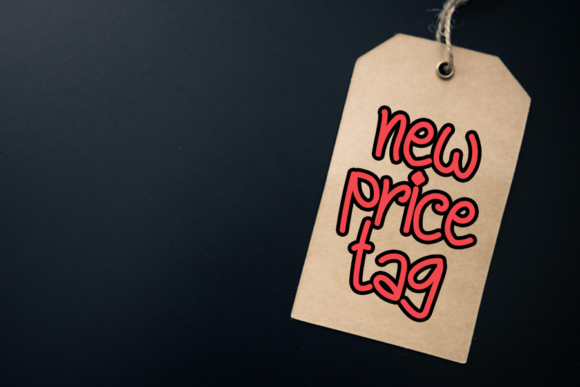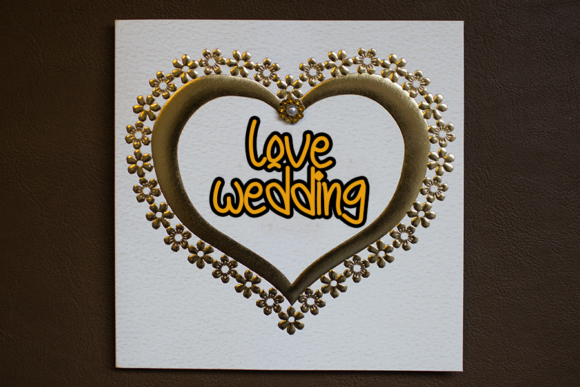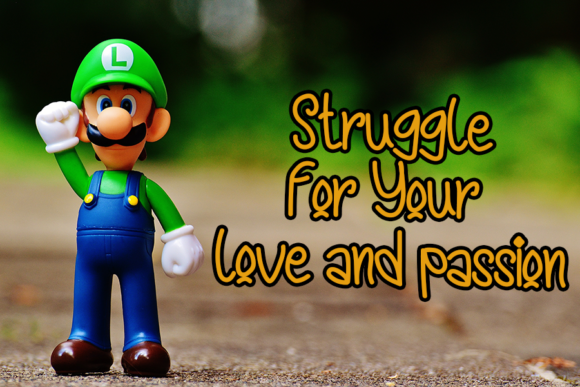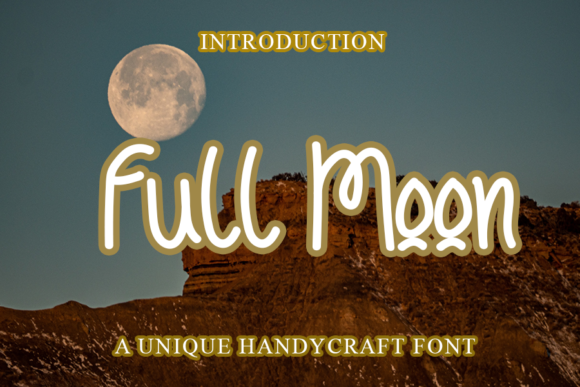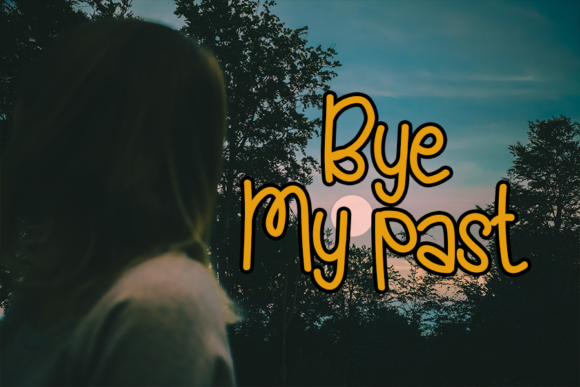
Full Moon Font
About Full Moon Font
Full Moon is a cute and dainty handwritten font. Whether you’re using it for crafting, digital designing, presentations or greeting cards making, it’s perfect!